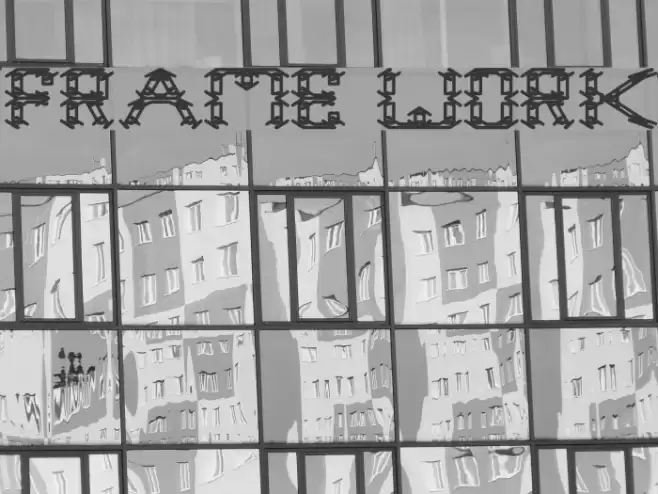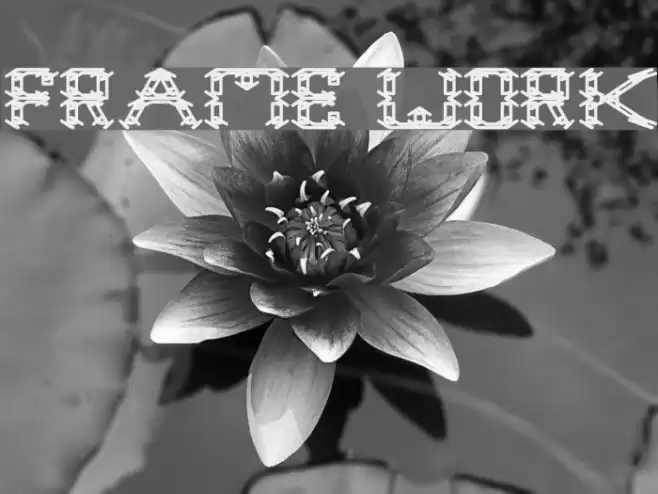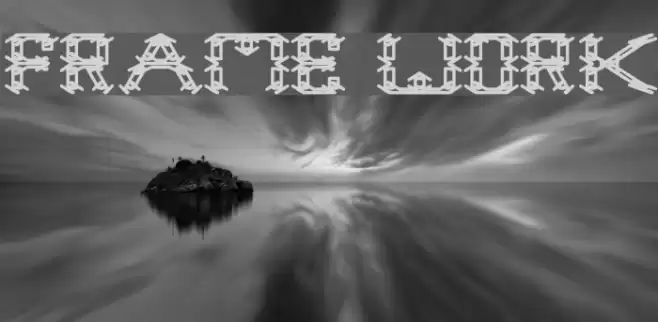
frame work Font
frame work Description
This font features a highly decorative and intricate design, characterized by its bold and complex geometric patterns. Each letter is constructed with a series of angular lines and shapes, creating a sense of depth and texture. The overall appearance is reminiscent of industrial or mechanical aesthetics, with a touch of modern artistry. The font's unique style makes it stand out, offering a visually striking option for creative projects. Its detailed design may not be suitable for small text but excels in larger formats where its intricate details can be appreciated.
A bold, decorative font with intricate geometric patterns and industrial flair from Uncategorized fonts.
- Proposed Projects: Ideal for use in posters, album covers, video game titles, and any project requiring a bold, artistic statement.
- Overall Style: Modern, Industrial